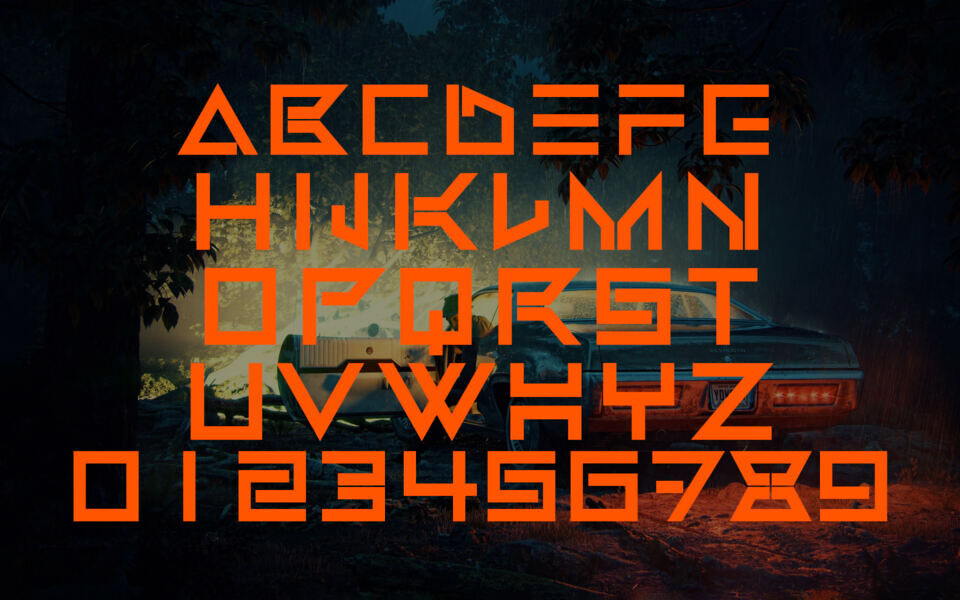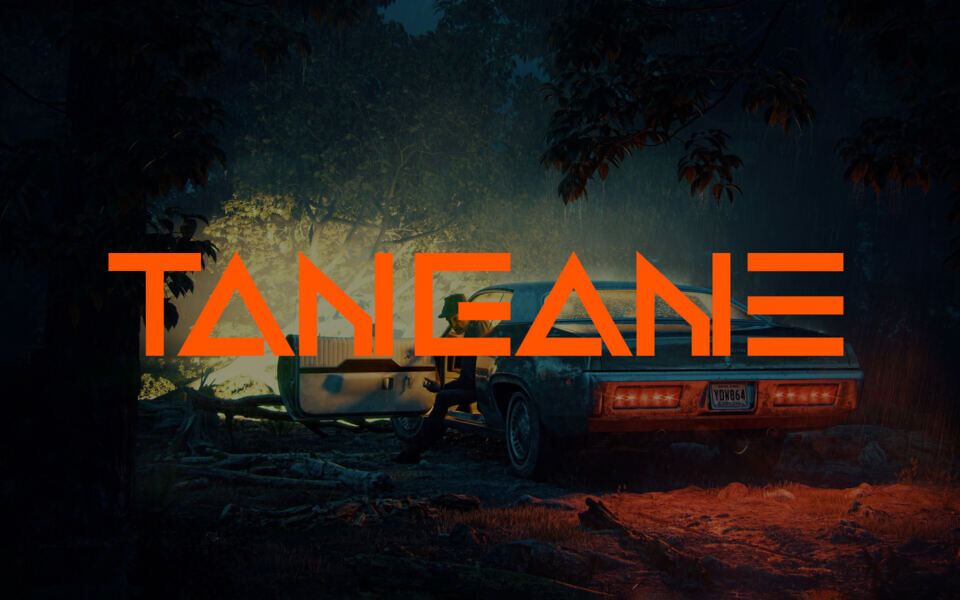
Tangane Font
Tangane is a techno-style font designed by Vladimir Nikolic. With its futuristic and geometric design, Tangane is ideal for digital projects, sci-fi themes, and modern branding.